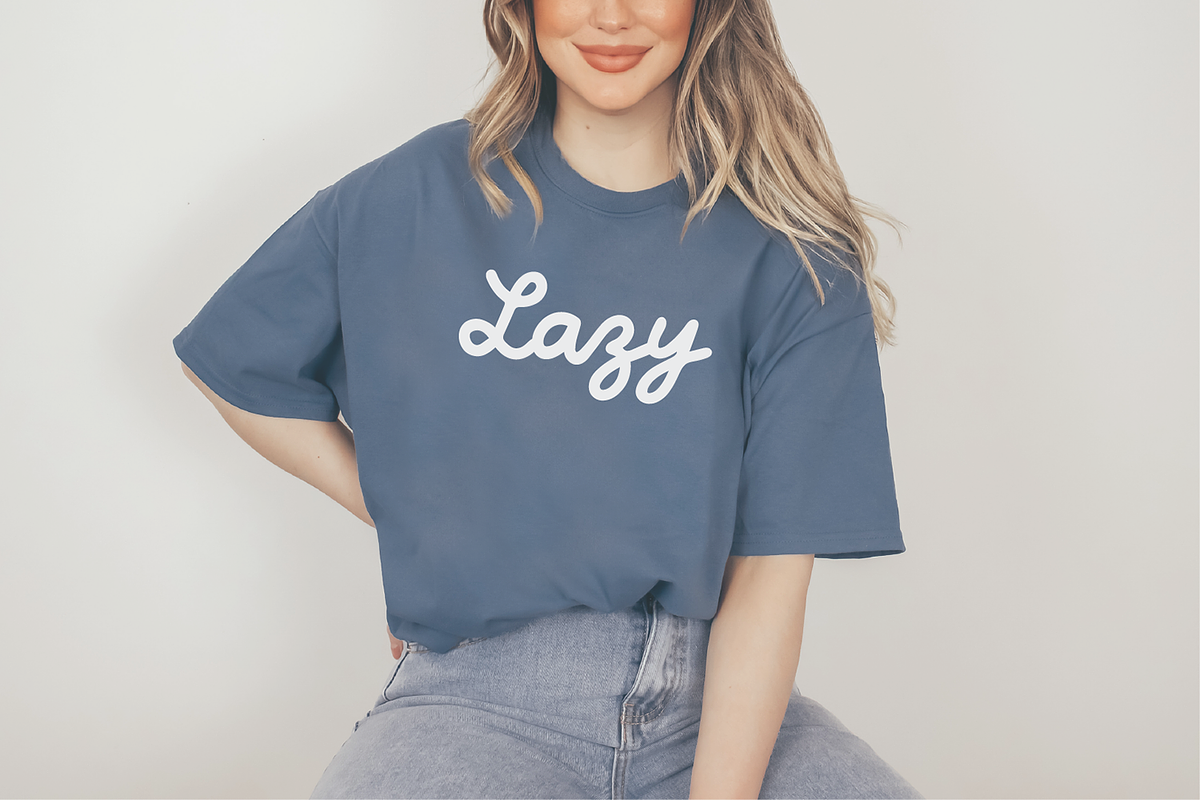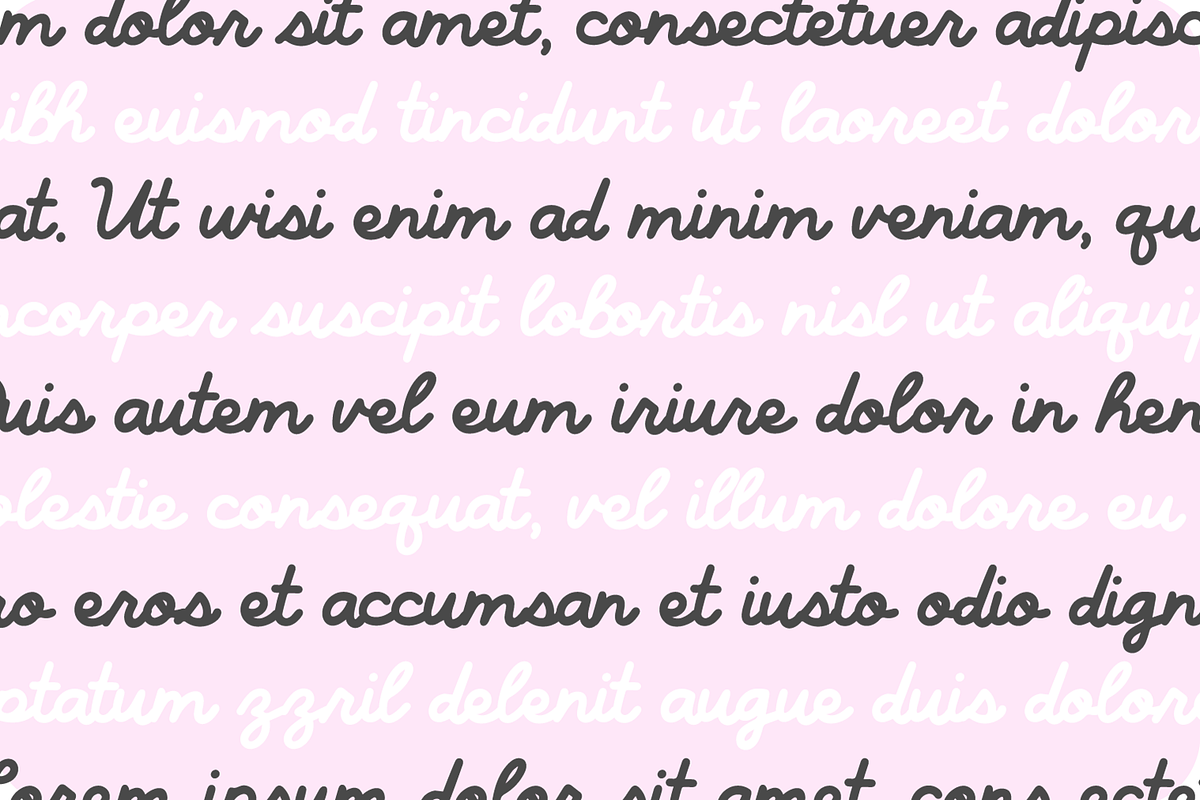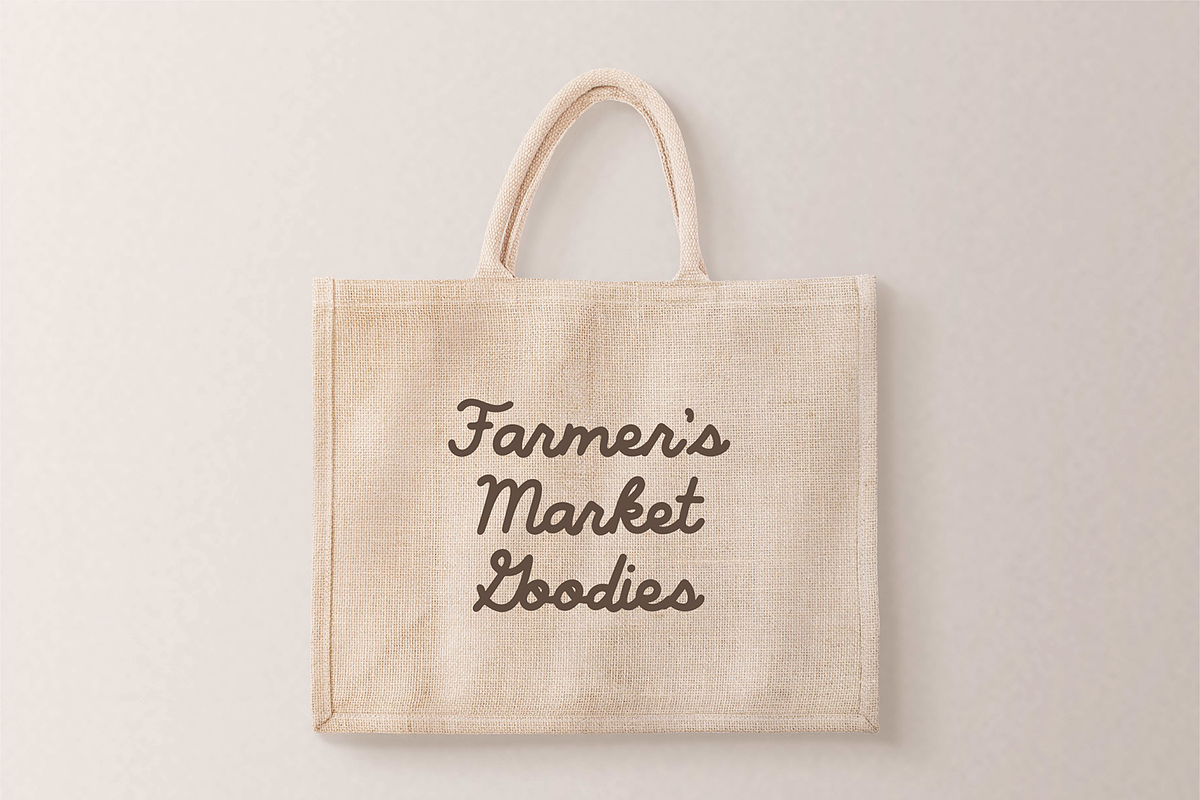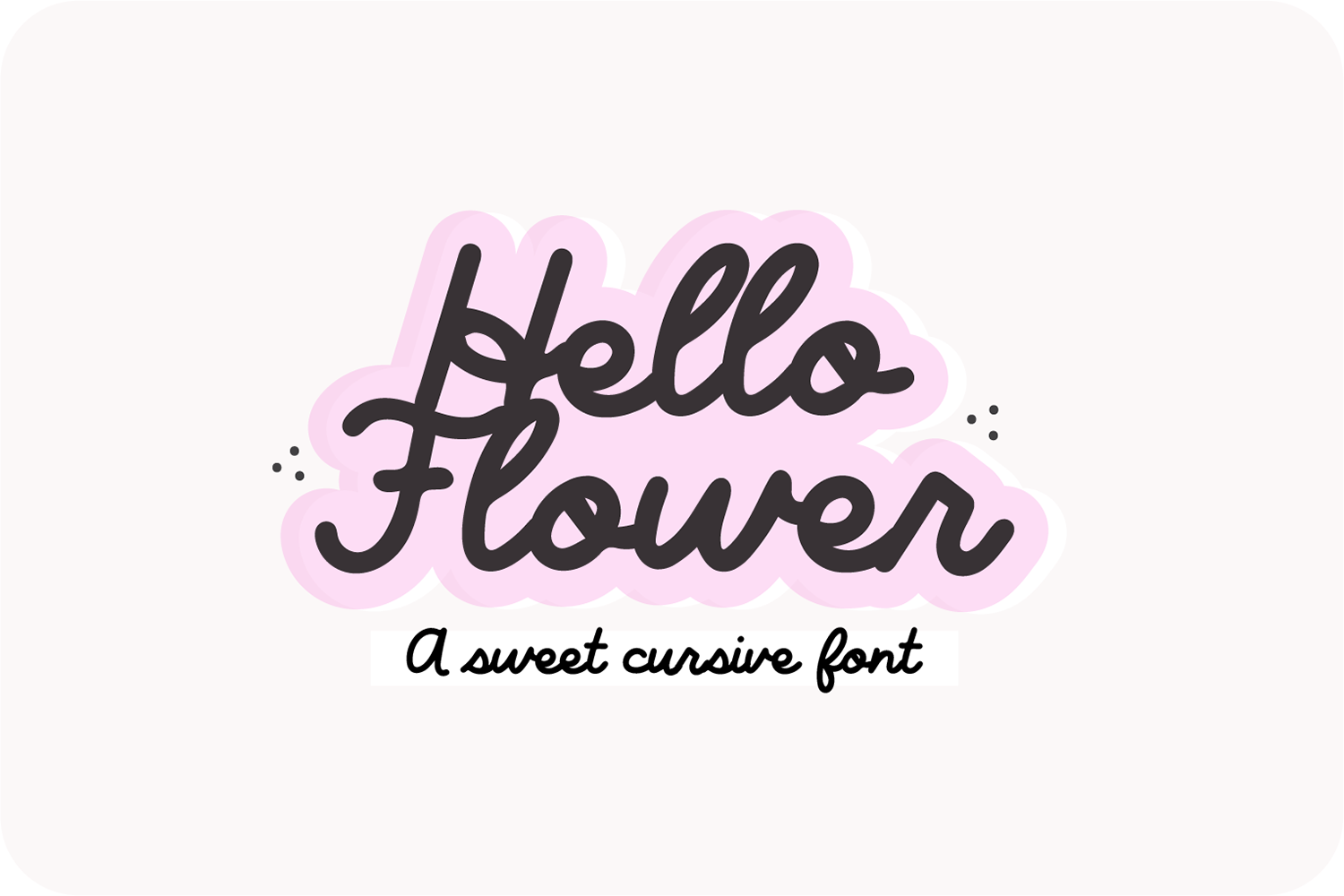
HELLO FLOWER Cursive Font
"Hello Flower" cursive handwriting font.
Hello Flower is a cute script handwriting font that is perfect for social media or crafty projects. Use it for branding, crafts for decor, invitations, and more! This font includes upper and lowercase glyphs, numbers, basic punctuation marks.